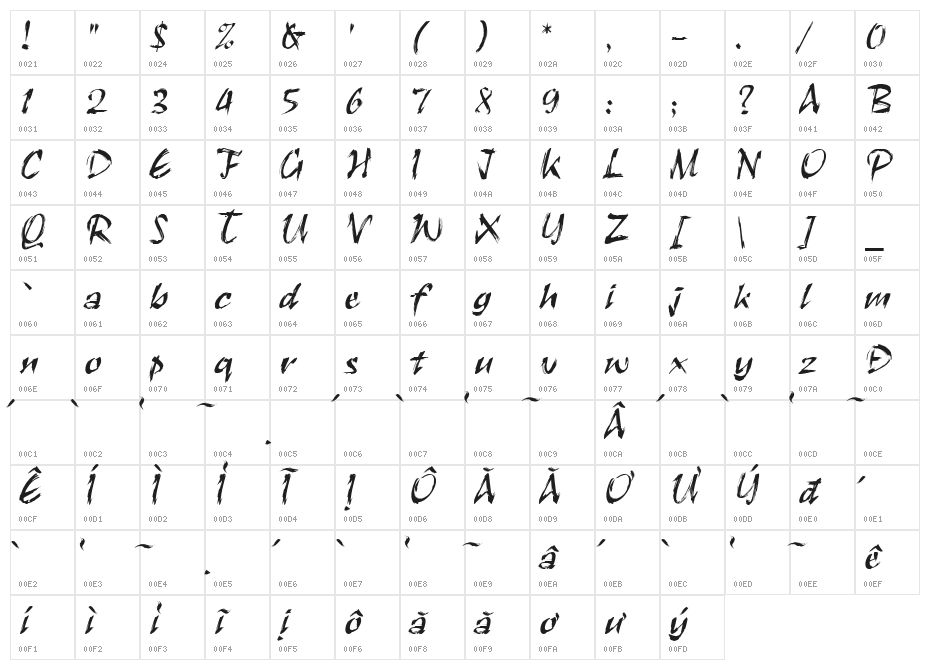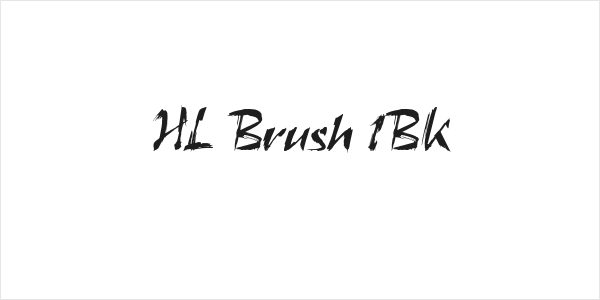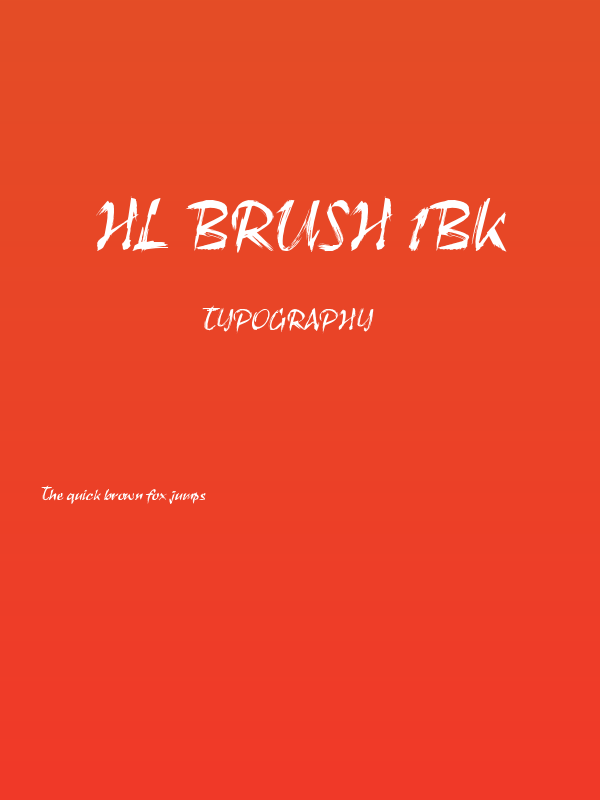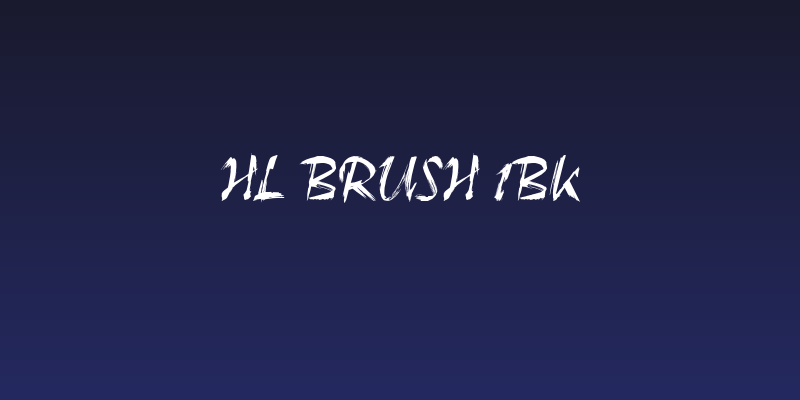
HL Brush 1BK Font
HL Brush 1BK Description
This font features a dynamic and expressive brush style, characterized by bold, sweeping strokes that convey a sense of movement and energy. The letters are crafted with a rough, textured appearance, giving them an artistic and hand-painted feel. The uppercase and lowercase letters maintain a consistent style, with varying stroke widths that add to the font's lively and spontaneous character. The numerals and special characters follow the same aesthetic, ensuring a cohesive look across all elements. This font is ideal for projects that require a bold, artistic touch.
| Proposed Projects | Perfect for artistic posters, branding, logos, and creative design projects that require a bold statement. |